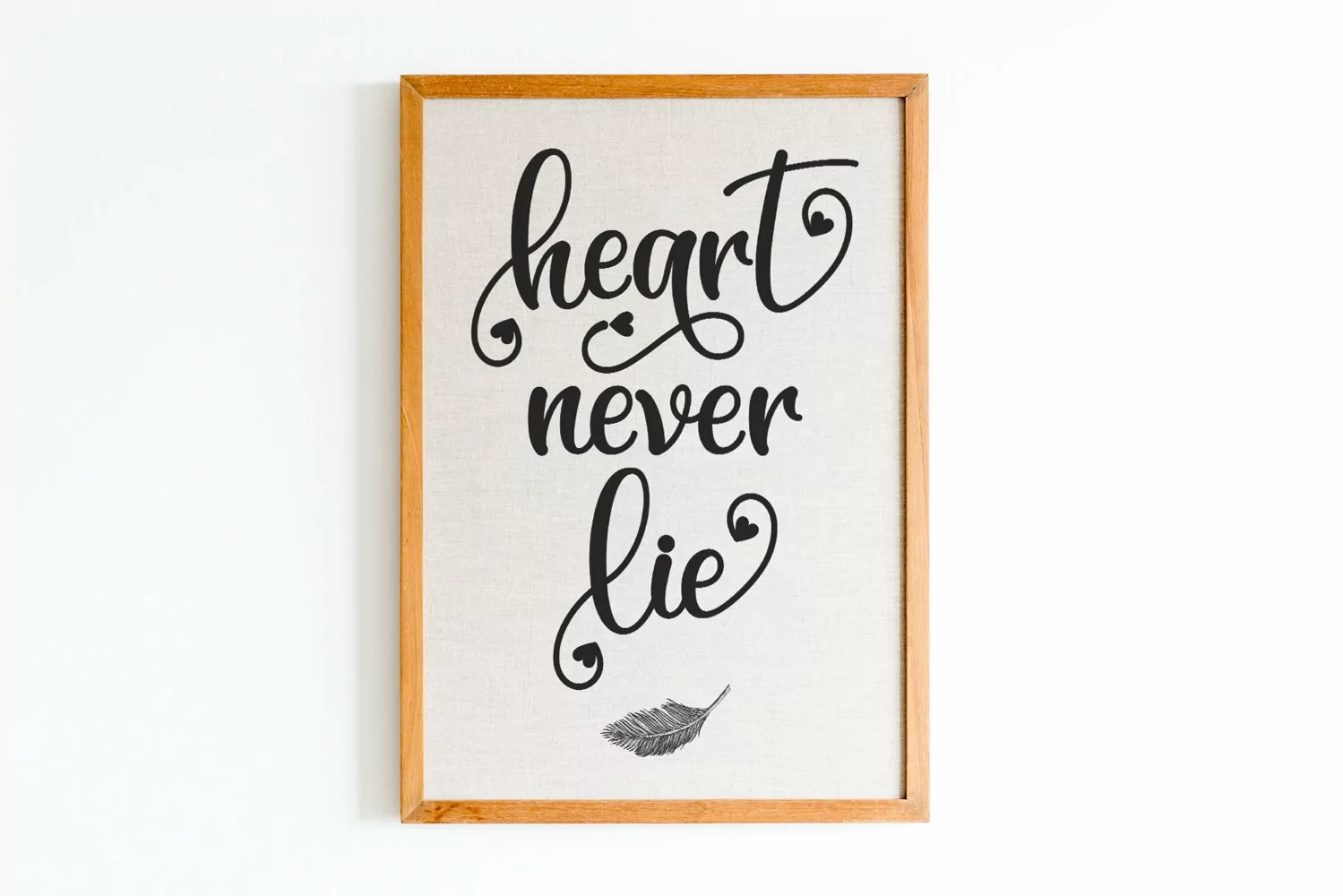
Andyou is a lovely and delicate script font that exudes elegance and class. This font was particularly crafted for those who need a beautiful and refreshing look to their designs. Andyou is PUA encoded which means you can access all of the glyphs and swashes with ease!